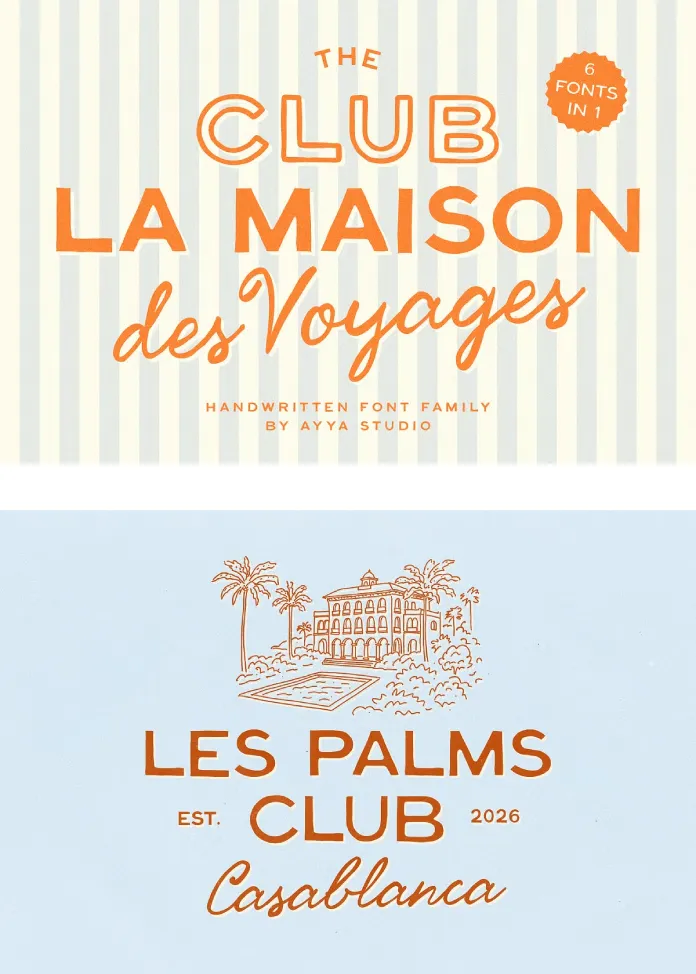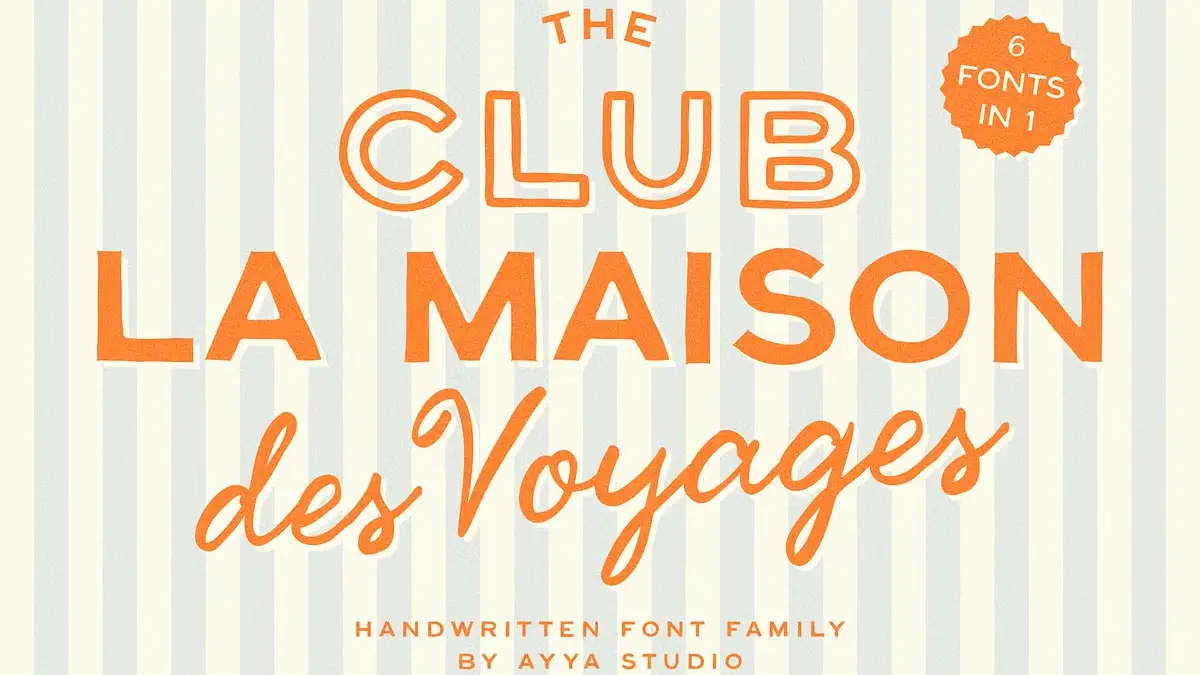
With its Set of Six Handwritten, Vintage Typefaces, the Club La Maison Des Voyages Font Family is a Passport to Timeless Design.
Just look around. Minimalist and sterile aesthetics often dominate the digital landscape today. A return to warmth, personality, and handcrafted charm is more than just a trend; it’s a movement. Designers and brands are increasingly seeking tools that tell a story, evoke emotion, and create a lasting connection with their audience. This is where the Club La Maison Des Voyages font family, a curated collection of six handwritten vintage typefaces by Ayya Studio, enters the scene. This isn’t just another set of fonts; it’s a carefully crafted toolkit for building narratives steeped in nostalgia and breezy sophistication.
Inspired by the golden age of travel, the faded charm of seaside resorts, and the effortless elegance of Mediterranean life, this font family offers a distinct personality that is both playful and refined. It captures the spirit of sun-drenched postcards, hand-painted bistro signs, and the intimate feel of a well-loved travel journal. For any creative looking to infuse their work with a sense of adventure and timeless appeal, the Club La Maison Des Voyages font family provides the perfect vehicle.
What is the Club La Maison Des Voyages Font Family?
At its core, the Club La Maison Des Voyages font family is a versatile and cohesive set of six distinct yet harmonious typefaces. Each font has been meticulously hand-drawn, retaining subtle imperfections that breathe life and authenticity into the letterforms. This intentional lack of perfect uniformity is precisely what gives the collection its unique character, setting it apart from more rigid, geometric designs. The family is designed for effortless mixing and matching, allowing for a rich and dynamic typographic hierarchy.
A Closer Look at the Six Fonts
The beauty of these typefaces lies in their thoughtful composition. It’s a complete package designed to work in synergy.
- Maison Voyage Font – Script & Script Slanted: The heart of the collection, this soft script font is fluid and expressive. It mimics the natural flow of handwriting, making it perfect for adding a personal touch. The slanted version offers a sense of movement and energy. It serves as an ideal focal point in logos, headlines, and pull quotes.
- Maison Voyage Font – Bold & Regular: These two sans-serif fonts provide a stable and legible foundation. The Bold variant is strong and confident, excellent for impactful headlines and subheadings, while the Regular version is clear and readable for longer text passages or supporting copy.
- Maison Voyage Font – Outline Bold & Outline Regular: Offering a more decorative and airy feel, the outline styles are perfect for creating layered effects, watermarks, or sophisticated headlines. They add a touch of elegance and visual interest without overwhelming the design.
Why Choose the Club La Maison Des Voyages Font Family for Your Designs?
Selecting a typeface is about more than just readability; it’s about conveying a mood and a message. The Club La Maison Des Voyages font family excels at creating an atmosphere of relaxed luxury and nostalgic charm. Its handwritten nature fosters a sense of authenticity and human connection, which is invaluable in today’s market. Why does this vintage aesthetic resonate so strongly?
The Psychology of Vintage Fonts in Branding
Vintage-inspired fonts tap into our collective memory, evoking feelings of comfort, tradition, and timelessness. They suggest a brand has a history, a story to tell, and a commitment to craftsmanship. For new businesses, this can create an impression of established credibility. For existing brands, it can signal a return to core values or a focus on quality. The slightly imperfect lines of the Club La Maison Des Voyages font family feel approachable and genuine, helping to build trust and rapport with the audience.
How to Effectively Use the Club La Maison Des Voyages Font Family
The true potential of this font family is unlocked through creative application. Its versatility makes it suitable for a wide range of projects, from digital to print. The key is to understand how the different fonts can interact to create a cohesive and visually engaging design.
Perfect Pairings and Creative Combinations
The magic of the Club La Maison Des Voyages font family is in the mix. The script and sans-serif fonts are designed to be perfect partners. Imagine a travel blog’s logo where the elegant “Maison Voyage Script” is beautifully contrasted with the sturdy “Maison Voyage Bold” for the tagline. This creates a dynamic and balanced composition. The outline fonts can be layered over solid backgrounds or photographs to add a sophisticated touch to social media graphics or website headers. Don’t be afraid to experiment with tracking and leading to find the perfect rhythm for your text.
Applications in Digital and Print Media
The high-quality design of these fonts ensures they look stunning across all mediums.
- Branding and Logos: Create memorable and evocative brand identities for boutique hotels, artisanal coffee shops, travel agencies, or fashion labels. The Club La Maison Des Voyages font family provides all the elements needed for a complete branding package.
Ultimately, the Club La Maison Des Voyages font family is an invitation to create designs with soul. It encourages a departure from the predictable and a move towards something more personal, evocative, and enduring. For any designer looking to tell a compelling story, this font collection is a passport to a world of creative possibilities. What story will you tell with it?